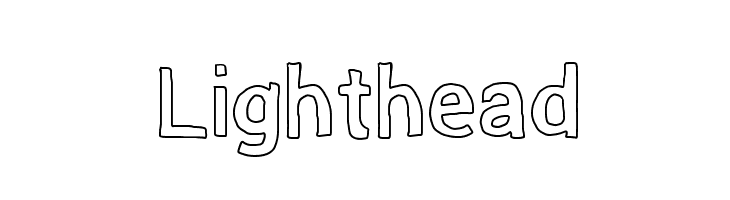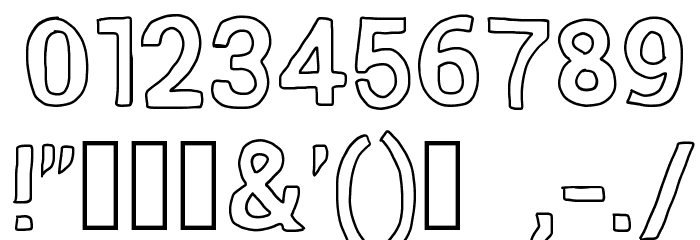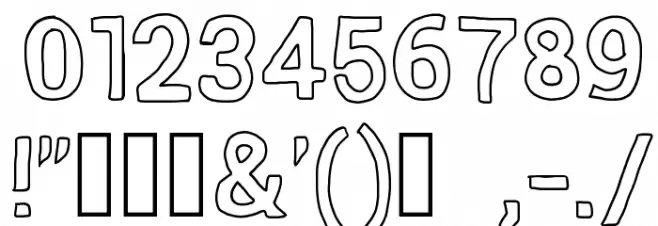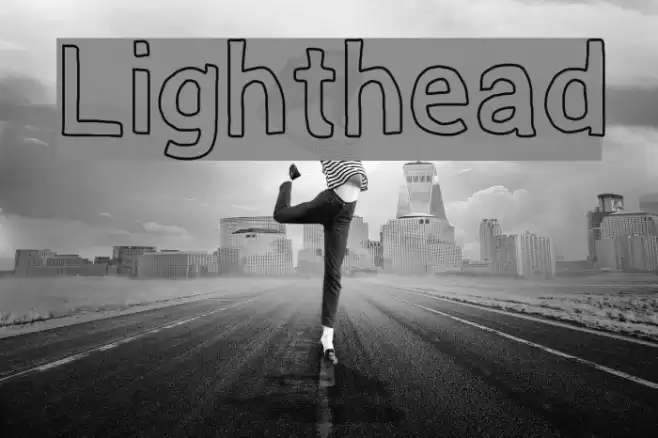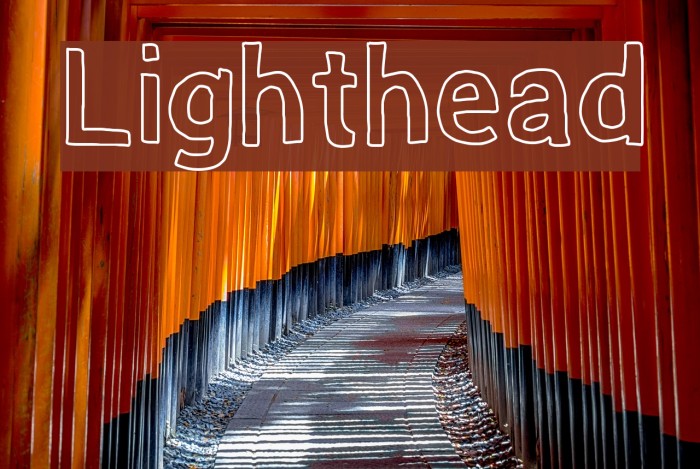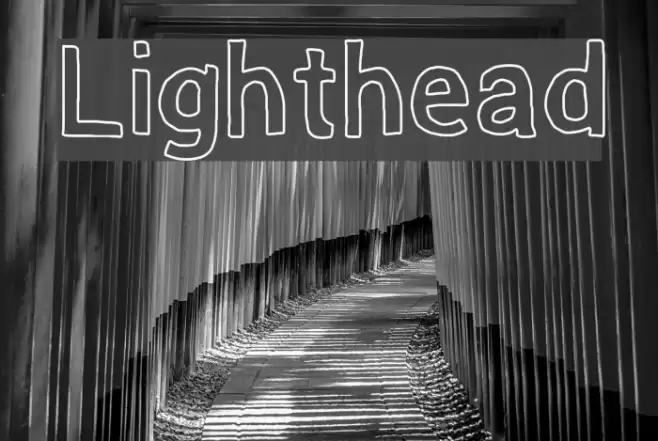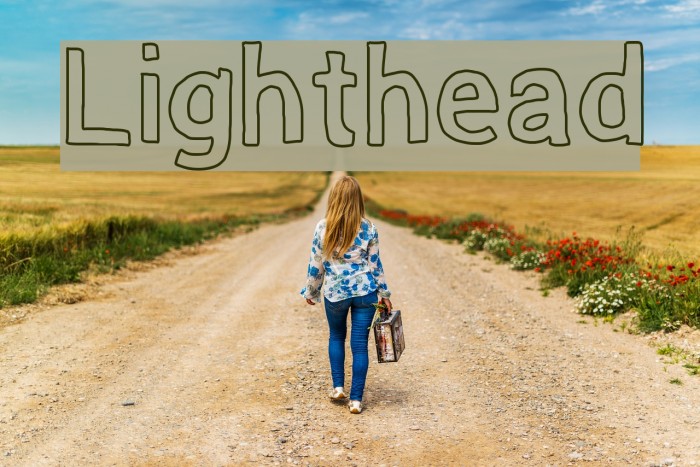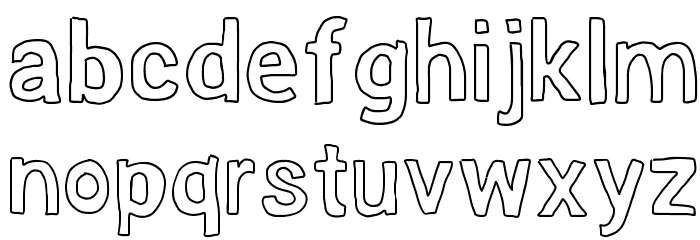
Lighthead Font
Lighthead Description
This font features a clean, outlined style with a modern and playful aesthetic. The characters are bold and well-defined, with a consistent stroke width that gives them a uniform appearance. The uppercase and lowercase letters maintain a harmonious balance, while the numerals and special characters are crafted to match the overall design. The font's open and airy feel makes it suitable for a variety of creative applications, offering a unique twist on traditional sans-serif fonts. Its distinct outline style adds a layer of visual interest, making it ideal for projects that require a touch of creativity and modernity.